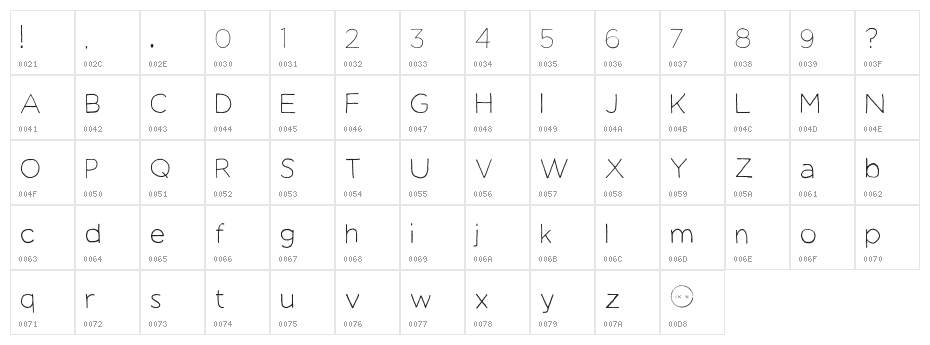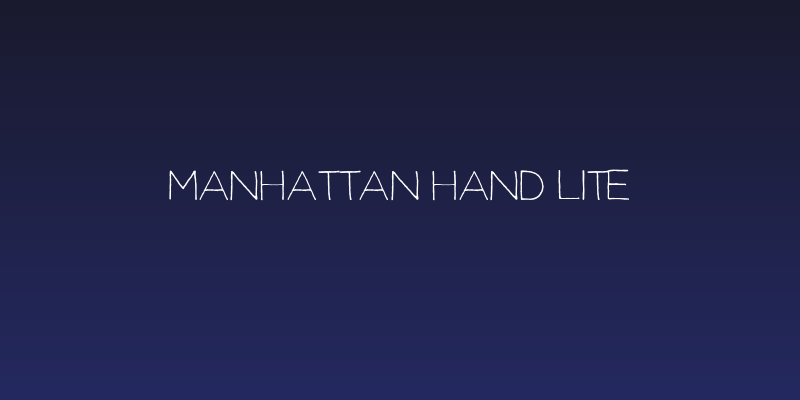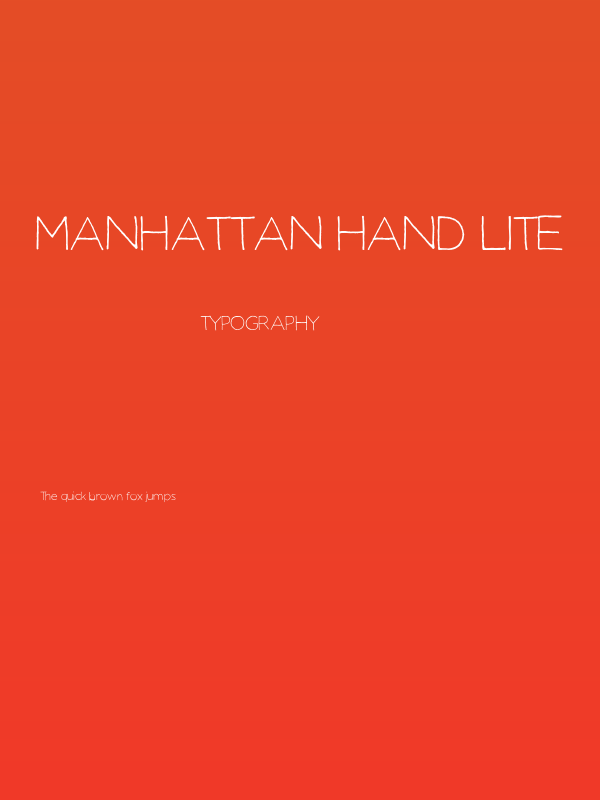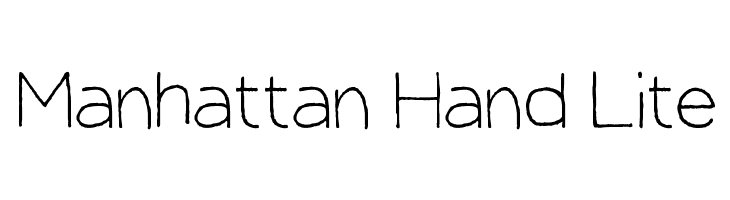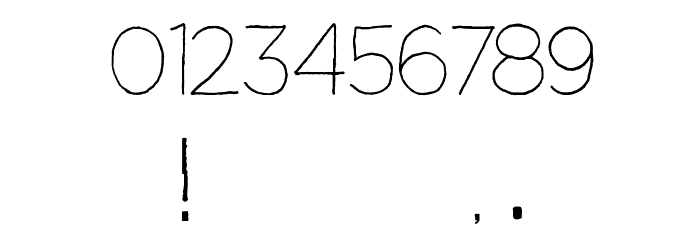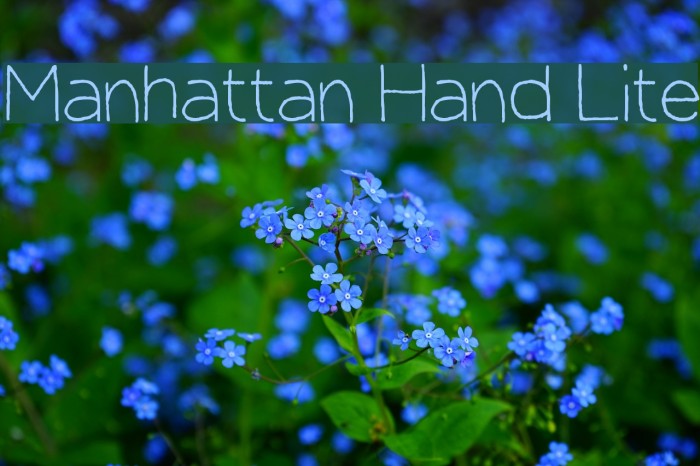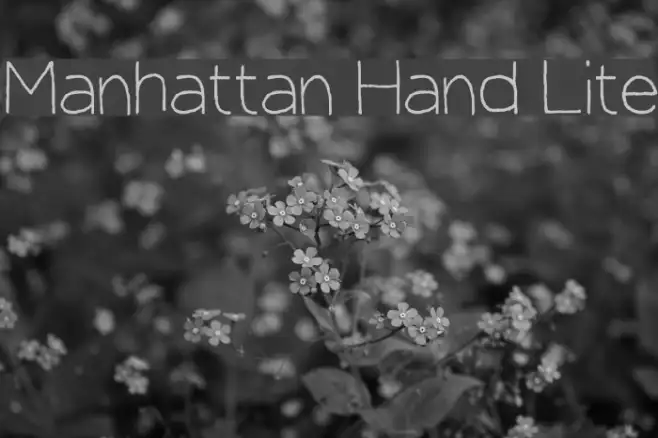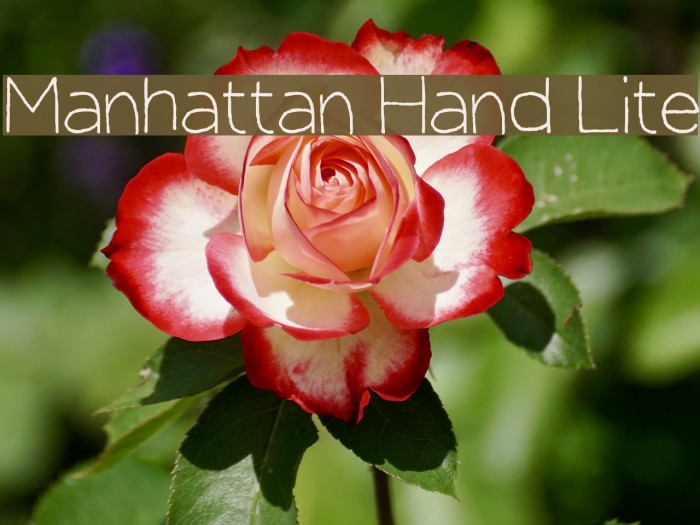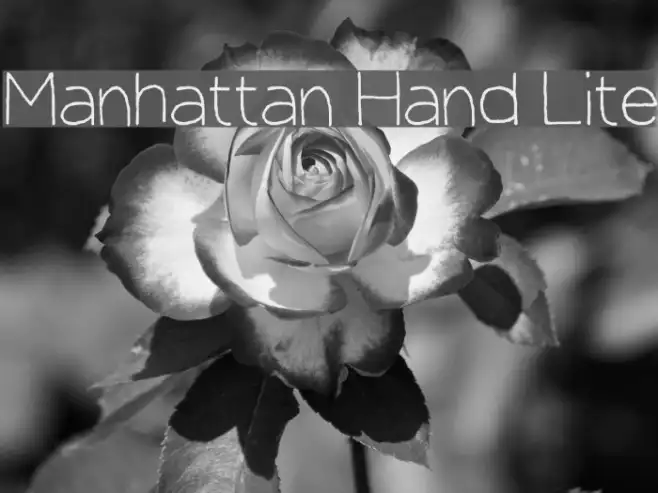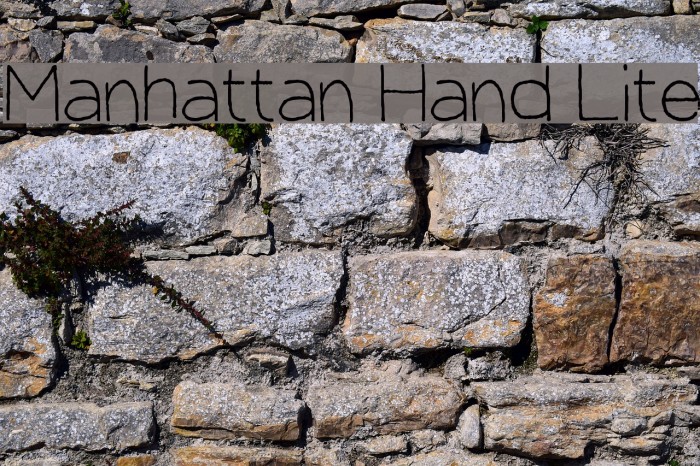
Manhattan Hand Lite Font
Manhattan Hand Lite Description
This font features a casual, handwritten style with a playful and informal appearance. The characters are slightly irregular, giving it a personal and approachable feel. The strokes are thin and consistent, with a slight wobble that adds to its charm. The uppercase and lowercase letters maintain a consistent height, while the numbers and special characters blend seamlessly with the overall design. This font is ideal for projects that require a touch of personality and warmth, such as invitations, greeting cards, and personal branding.
| Use Case | Headlines, Informal text, Personal projects |
| Proposed Projects | Ideal for invitations, greeting cards, personal branding, and informal communications. |